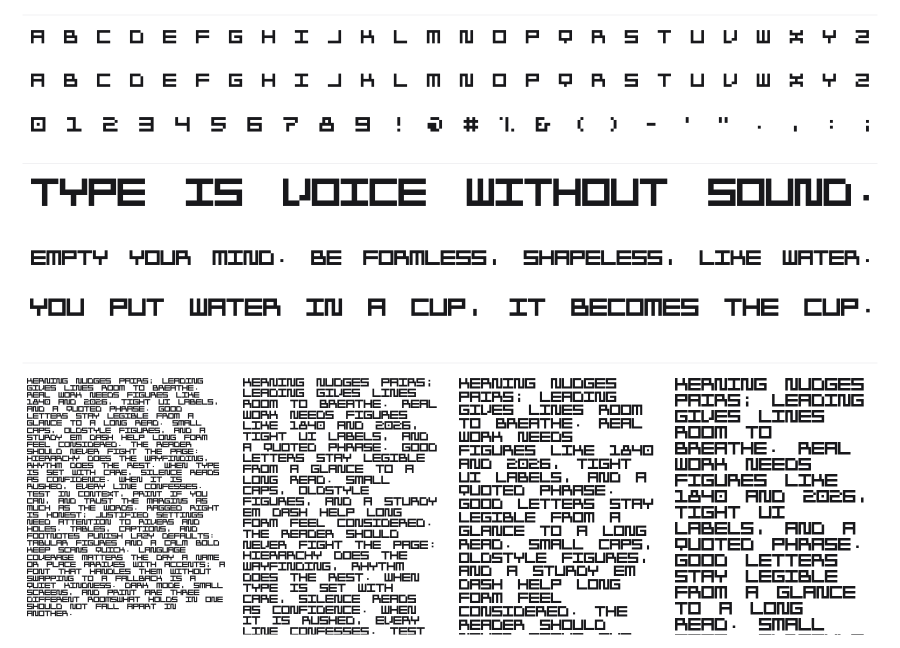
Morohashi
Morohashi is a bold, blocky display face from Glitch with squared-off letterforms that nod to the rigid structure of Japanese katakana while staying fully Latin. The geometric construction feels digital and futuristic, with minimal curves and heavy, uniform strokes that give each character a dense, architectural presence. Best at large sizes for headlines, posters, and branding where you want something that reads as both modern and culturally textured.